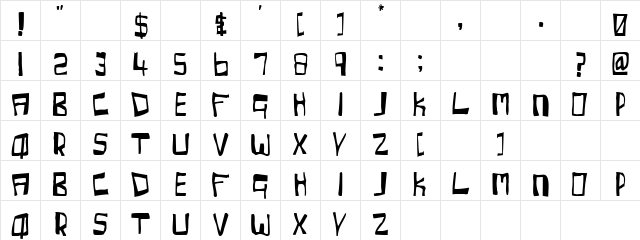
Cromatic San Regular
Design Context for Cromatic San Typeface
Cromatic San is a composed and adaptable typeface that performs quietly and consistently across a wide range of design contexts.